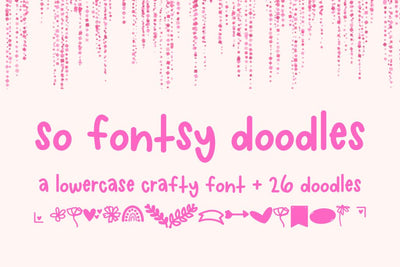
So Fontsy Doodles Lowercase Font with 26 Doodles
So Fontsy Doodles Lowercase Font with 26 Doodles is a fun and unique font that includes hand-drawn doodles for each letter. Perfect for adding a quirky touch to your t-shirts, cards, and other craft projects.- 1So Fontsy Design Shop SVGs | Printables | Fonts ,